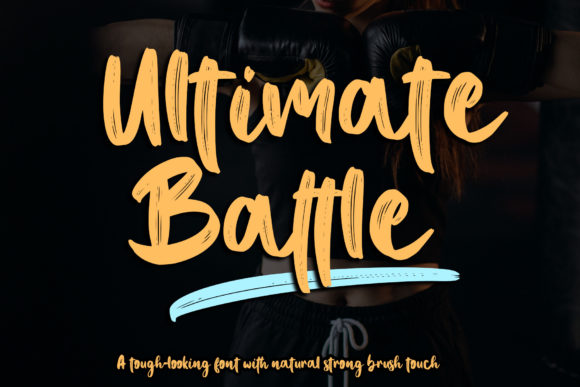
Feast your eyes upon Ultimate Battle, a script font family that brims with a rare blend of elegance and charm, inviting you to embark on a journey of creativity like never before. Handcrafted by the talented thomasaradea, this font is more than just a collection of letters; it's an artistic expression designed to elevate your designs to new heights.
With its graceful strokes and enchanting flow, Ultimate Battle captures the essence of handwritten calligraphy, evoking a sense of timeless beauty and sophistication. Each character is meticulously crafted to perfection, exuding a touch of elegance that will leave a lasting impression on your audience.
Harness the power of Ultimate Battle to create designs that speak volumes, whether it's for your food packaging, branding materials, social media posts, or any project that demands a touch of finesse. This font family is the perfect choice for businesses in the food industry looking to create packaging that exudes quality and distinction. Picture your product adorned with the elegant script of Ultimate Battle, inviting customers to embark on a culinary adventure like no other. Let your brand's story unfold through the captivating curves and flourishes of this extraordinary font.
Go beyond mere words and create a visual masterpiece with Ultimate Battle. Its PUA encoding ensures effortless access to a treasure trove of glyphs and swashes, empowering you to add intricate details and flourishes to your designs. Unleash your creativity and let your imagination soar as you explore the endless possibilities that await you within this font family.
Don't settle for ordinary when you can embrace the extraordinary. Choose Ultimate Battle and unlock a world of creativity that will captivate your audience and leave them craving for more. Experience the transformative power of this exquisite font family and watch your designs blossom into works of art.